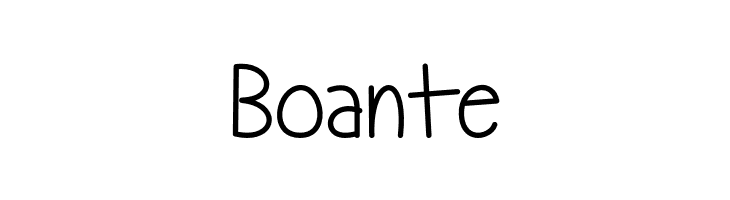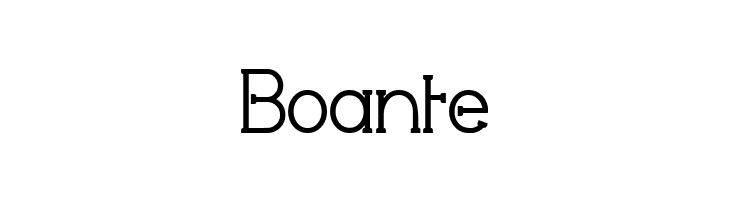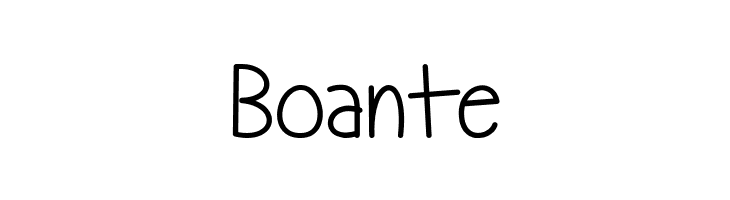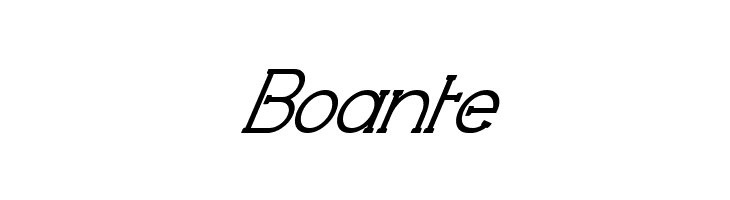
Technically Insane Widesemibold Font
Font by Graham Meade - GemFonts
A bold, wide font with a modern, geometric style.
Technically, But Not Actually Font
A playful, casual handwritten font with rounded, irregular letterforms.
Technically Insane Font
Font by Graham Meade - GemFonts
A modern geometric font with clean lines and circular forms.
Technically Insane Outline Font
Font by Graham Meade - GemFonts
A modern, geometric outline font with a technical and structured appearance.
Technically Insane Narrow Font
Font by Graham Meade - GemFonts
A narrow, modern font with geometric influences and clean lines.
Technically Insane Italic Font
Font by Graham Meade - GemFonts
A dynamic italic font with a modern, energetic style and unique character design.
Technically Insane Superitalic Font
Font by Graham Meade - GemFonts
A dynamic, italicized font with a sleek, modern style.
Technically Insane NarrowItalic Font
Font by Graham Meade - GemFonts
A narrow, italic font with a dynamic and modern style.
TechnicallyButNotActually Font
Misti's Fonts - mistifonts.com/
A playful, handwritten font with rounded edges and a casual style.